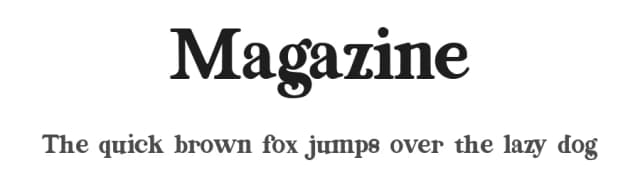
About Carizo Font
| Designer | Zain Fahroni |
Carizo Font is a versatile serif font that works for both headings and body text. Pair it with a contrasting sans-serif or slab serif font to add visual interest and a clear distinction between titles and body copy.